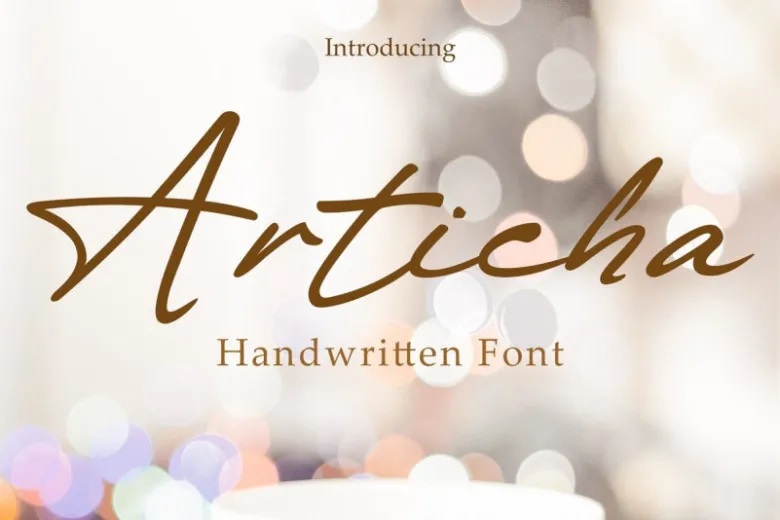
Articha Font
Articha Font that has a natural handwriting style is ideal for various projects such as logos & branding, invitation, stationery, wedding designs, social media posts, advertisements and product packaging. It can also be used in posters or any other special events like fashion shows etc.
Articha Handwritten Script Font